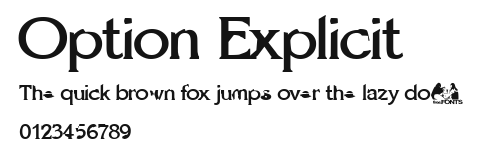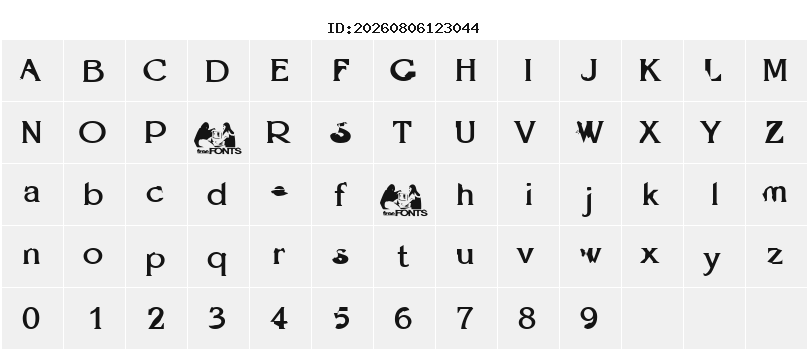
• Font Name: Option Explicit
• Full Font Name: Option Explicit
About Option Explicit.ttf
Option Explicit.ttf is a modern, elegant sans-serif font designed for ultimate readability and visual harmony. Perfect for branding, headlines, web design, and print materials.